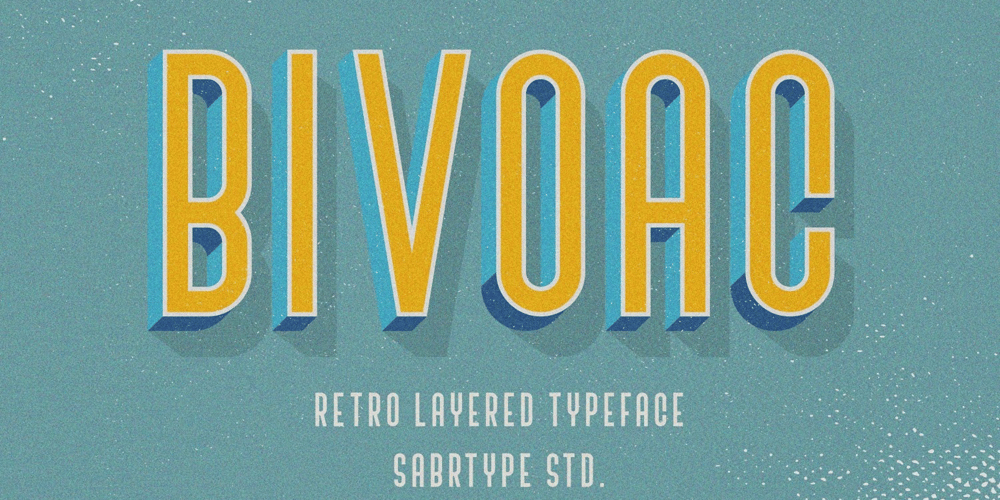
Bivoac Font Family was designed by Irpan Maulana and published by Sabrcreative. Bivoac contains 5 styles and family package options. Discover Bivoac, a versatile layered display sans font that offers easy usability and is perfect for creating stunning 3D and vintage designs. We present this unique font, designed to add depth and character to your projects.With its layered system, Bivoac allows you to effortlessly create multi-dimensional typographic compositions. Whether you’re working on a vintage poster project or aiming for eye-catching 3D effects, this font provides the tools you need to bring your vision to life.Bivoac features both uppercase and lowercase letterforms, ensuring versatility and allowing for creative combinations. It also includes numbers, punctuation marks, and comprehensive multilingual support, enabling you to cater to a wide range of audiences in various languages.When you purchase Bivoac, you receive the complete set of font variations: Bivoac Regular: Perfect for the base layer Bivoac Outline: Adds an outline effect Bivoac Shadow: Creates a shadow effect Bivoac Dark: Provides a bold and dark variation Bivoac Drop Shadow: Adds depth with a drop shadow effect Unlock your creativity and enjoy the layered features of Bivoac. Enhance your designs with its diverse options and explore the possibilities of captivating 3D and vintage visuals.